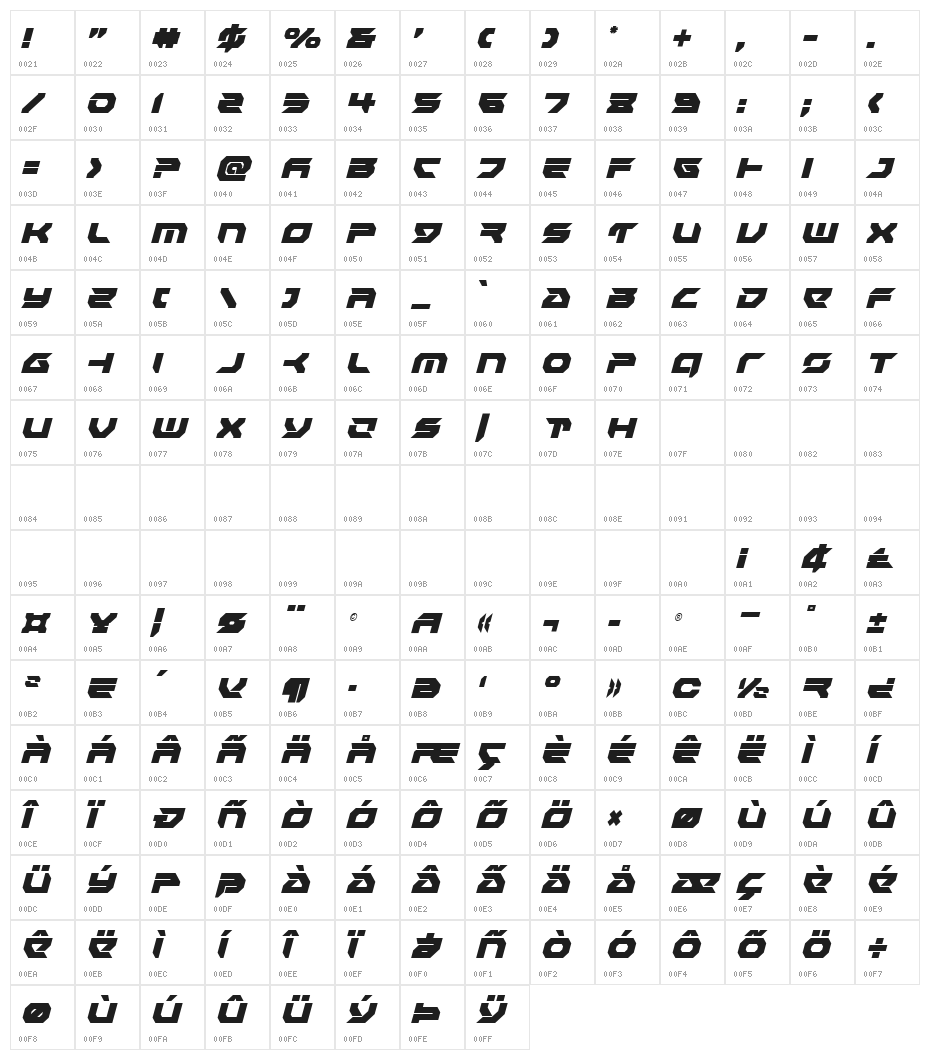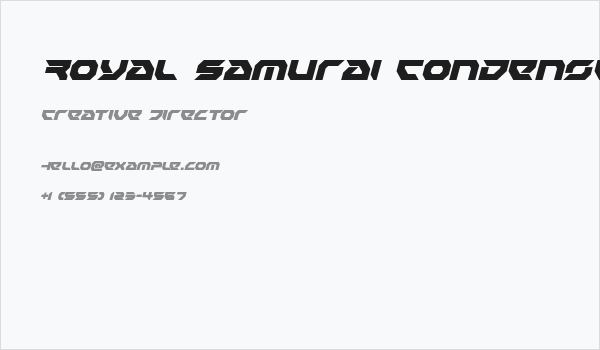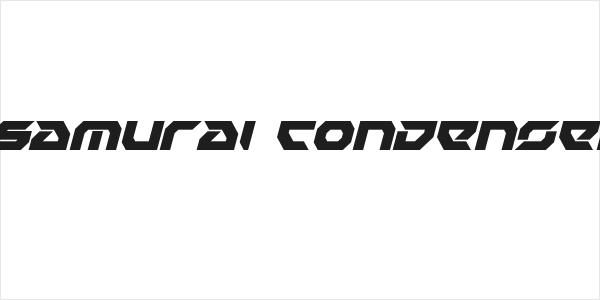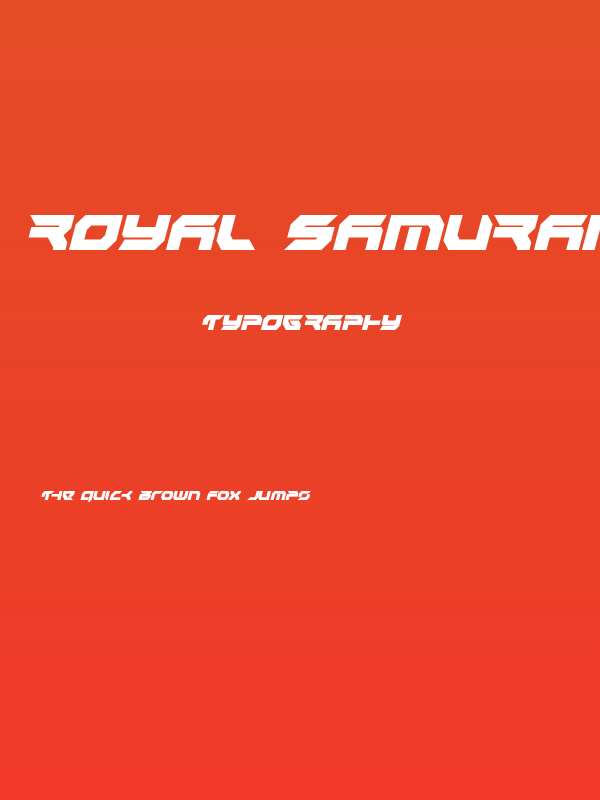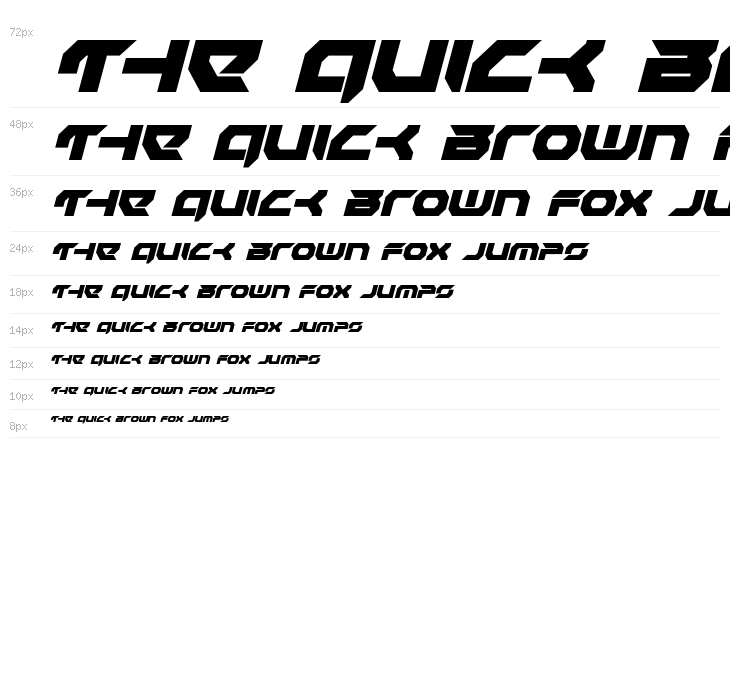
Royal Samurai Condensed Italic Font
Royal Samurai Condensed Italic Description
This font features a bold, angular design with a futuristic and dynamic appearance. The characters are sharply cut with a condensed form, giving them a compact and powerful look. The italic style adds a sense of motion and speed, making it ideal for projects that require a modern and energetic feel. The uppercase and lowercase letters maintain a consistent style, with distinct geometric shapes that enhance the overall aesthetic. Numbers and special characters follow the same design principles, ensuring uniformity across all text elements.
| Proposed Projects | Ideal for sci-fi themed designs, video game graphics, sports branding, and dynamic posters. |